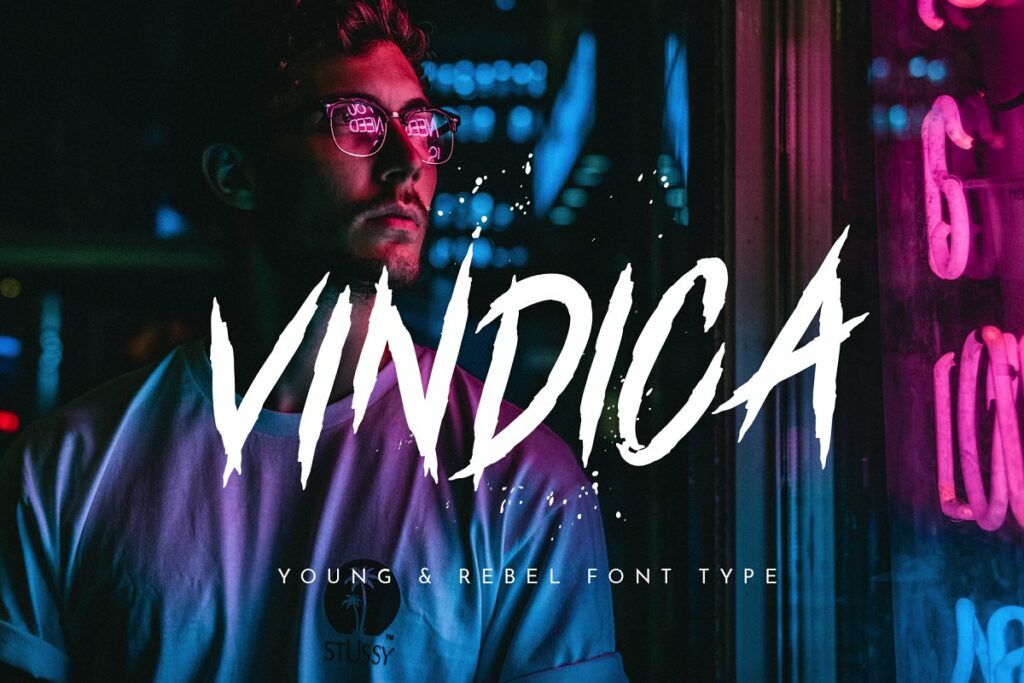
Vindica Font
Create a Extraordinary Typography / lettering results by using Vindica Rebel Font. Best match for logos, header, Titles, Prints & other Creative process possibilities.
Vindica Rebel Brush Font